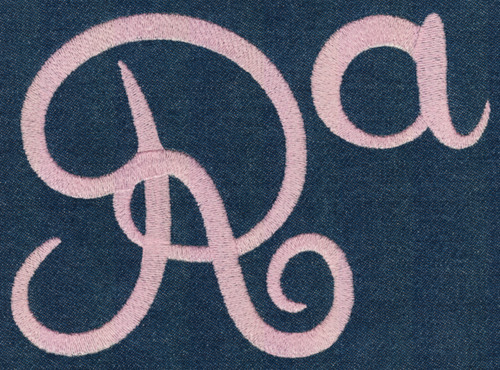
681 Cotillion JUMBO SatinFill Font
681 Cotillion JUMBO SatinFill Font comes in 4", 5", 6" & 7" heights based on the capital "A". Includes uppercase letters, lowercase letters, numbers and six punctuation marks. All sizes are finished in SatinFill Stitch. See Question #14 on the Frequently Asked Questions page for details about SatinFill Stitch.
PLEASE NOTE: lowercase letters with ascenders (b, d, h, k, l, t) or descenders (y, z) are about 40% taller than the height of the uppercase letters and extend above or below the base line respectively; the letter "f" has an ascender and descender and is twice the height of the capital letters extending above the height of the uppercase letters and below the base line that the uppercase letters sit on. Please click the character chart image above to see all of the characters in this set.